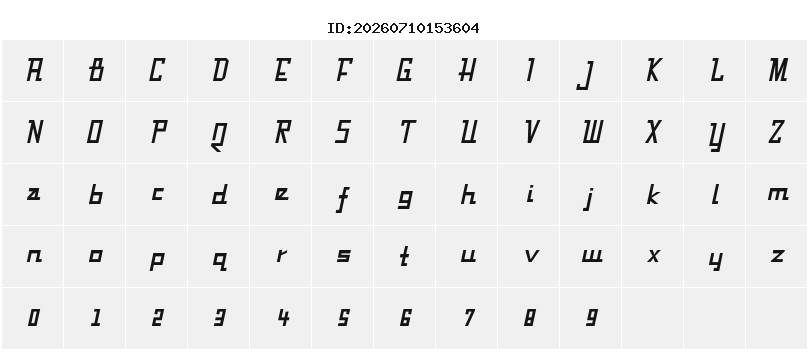
Fabian Preview
• Font Name: Fabian
• Full Font Name: Fabian
About Fabian.ttf
Fabian.ttf is a modern, elegant sans-serif font designed for ultimate readability and visual harmony. Perfect for branding, headlines, web design, and print materials.